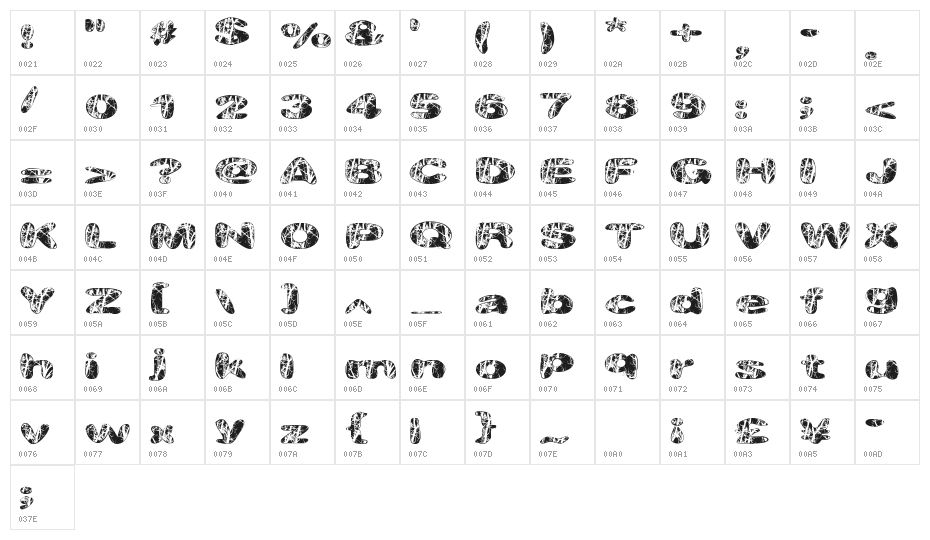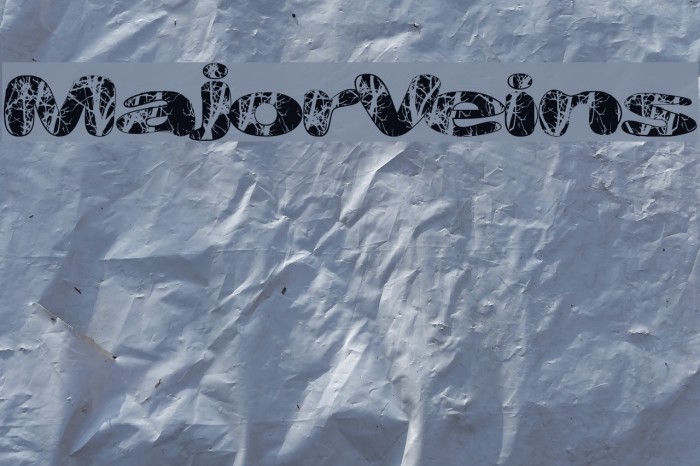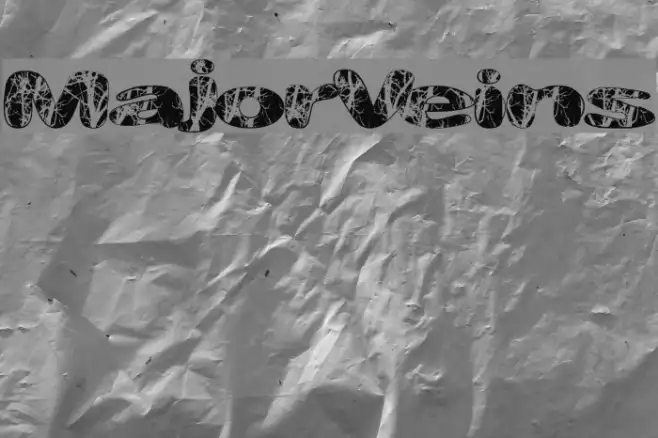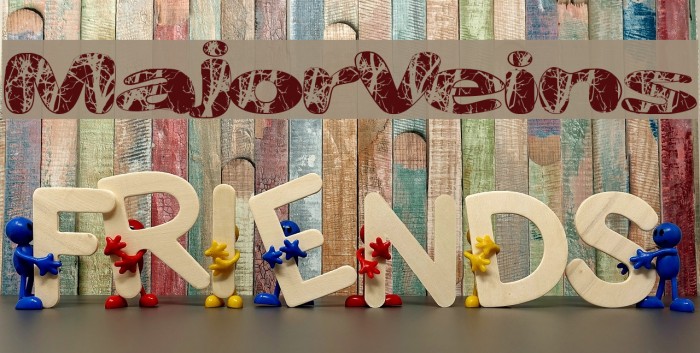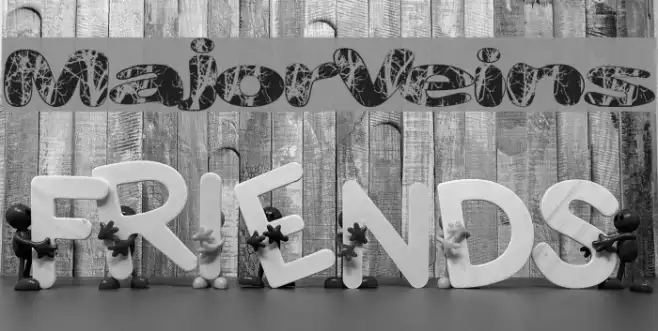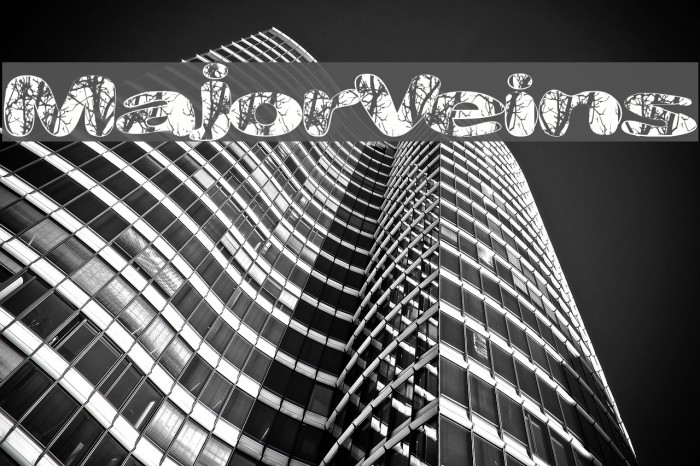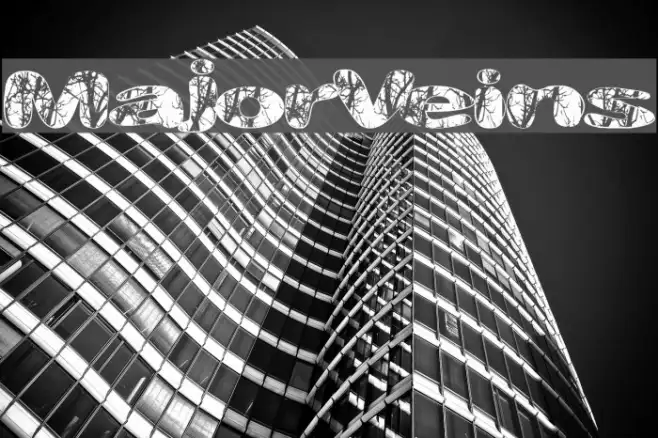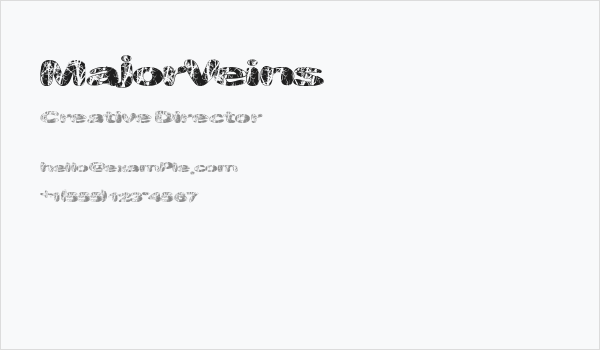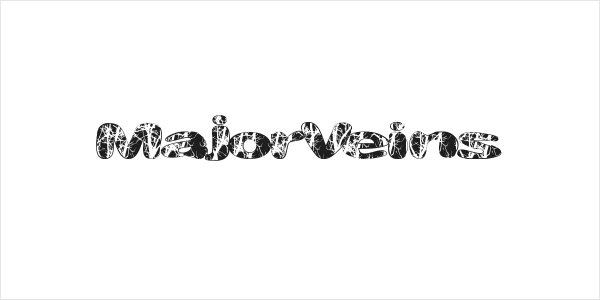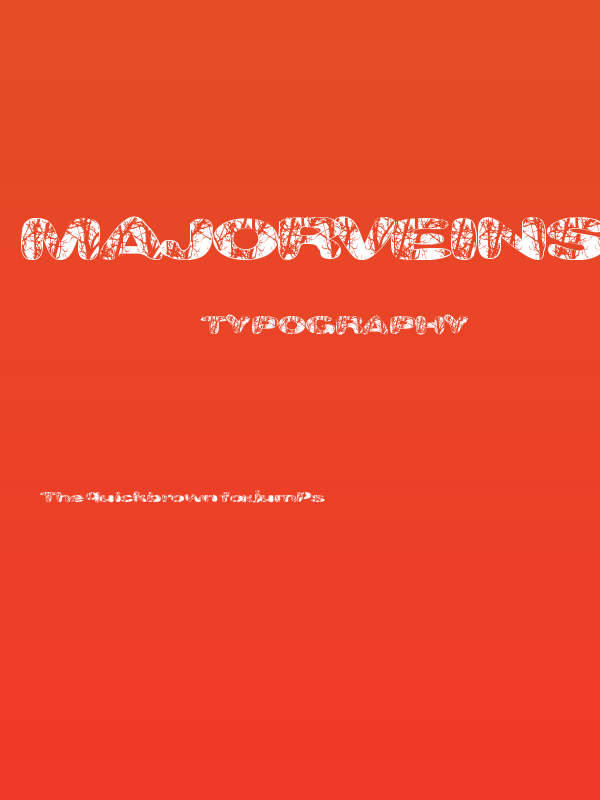
MajorVeins Font
MajorVeins Description
This font features a bold, decorative style with a unique, textured pattern resembling veins or cracks running through each character. The letters are rounded and have a playful, artistic appearance, making them stand out with their intricate design. The uppercase and lowercase letters maintain a consistent style, with the numbers and special characters following suit. This font is highly stylized, offering a distinct visual impact that is both modern and edgy.
| Overall Style | Modern, Edgy |
| Proposed Projects | Ideal for artistic projects, posters, album covers, or any design requiring a bold, eye-catching font. |